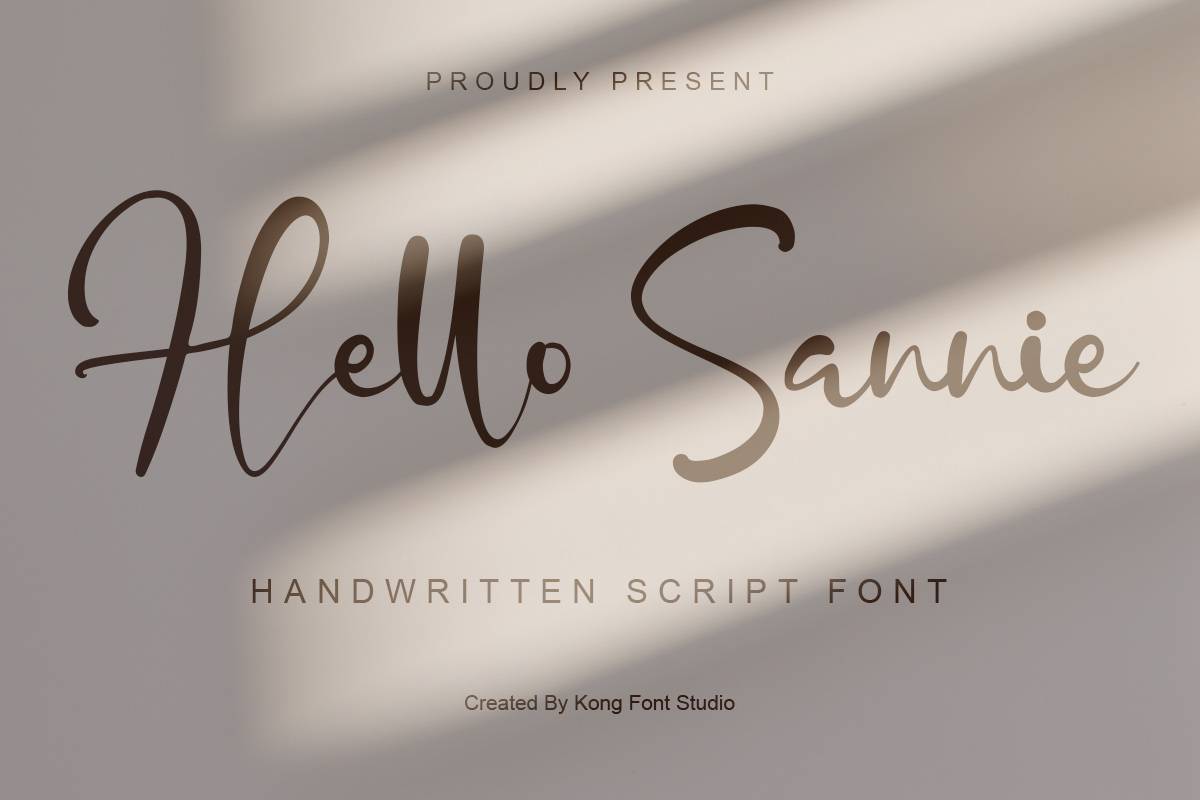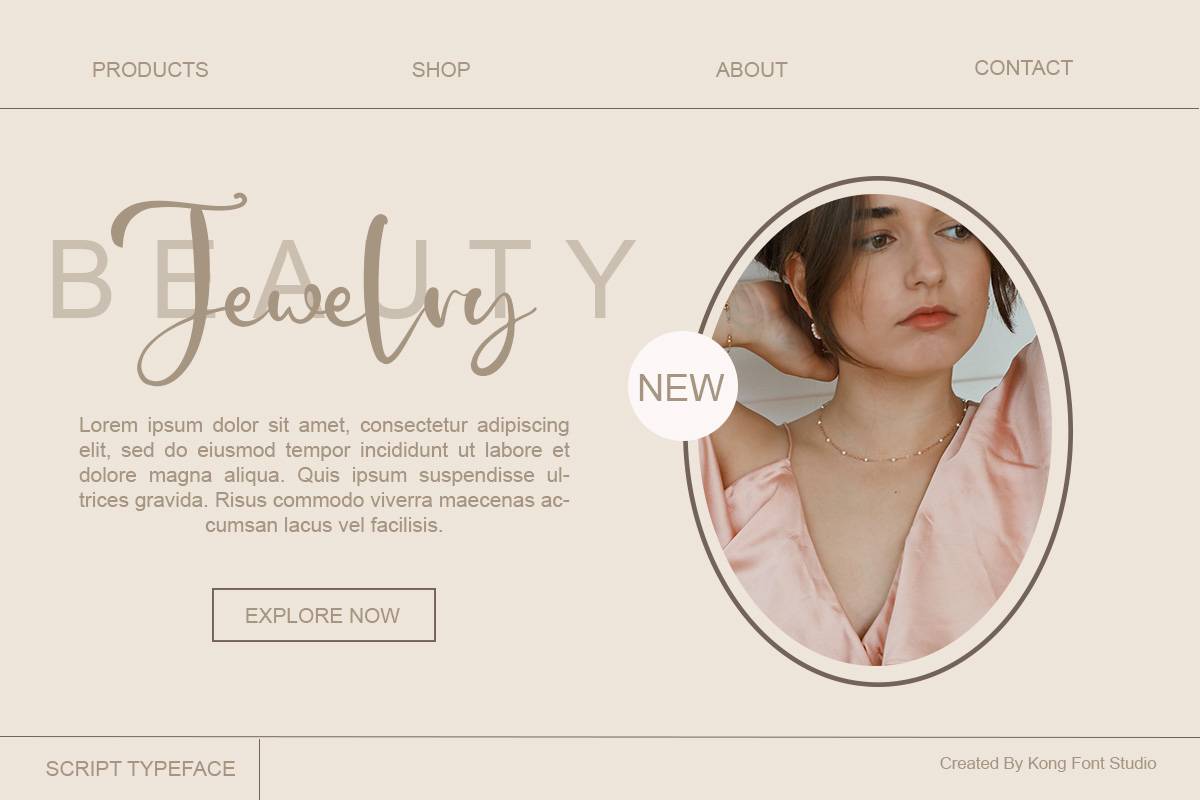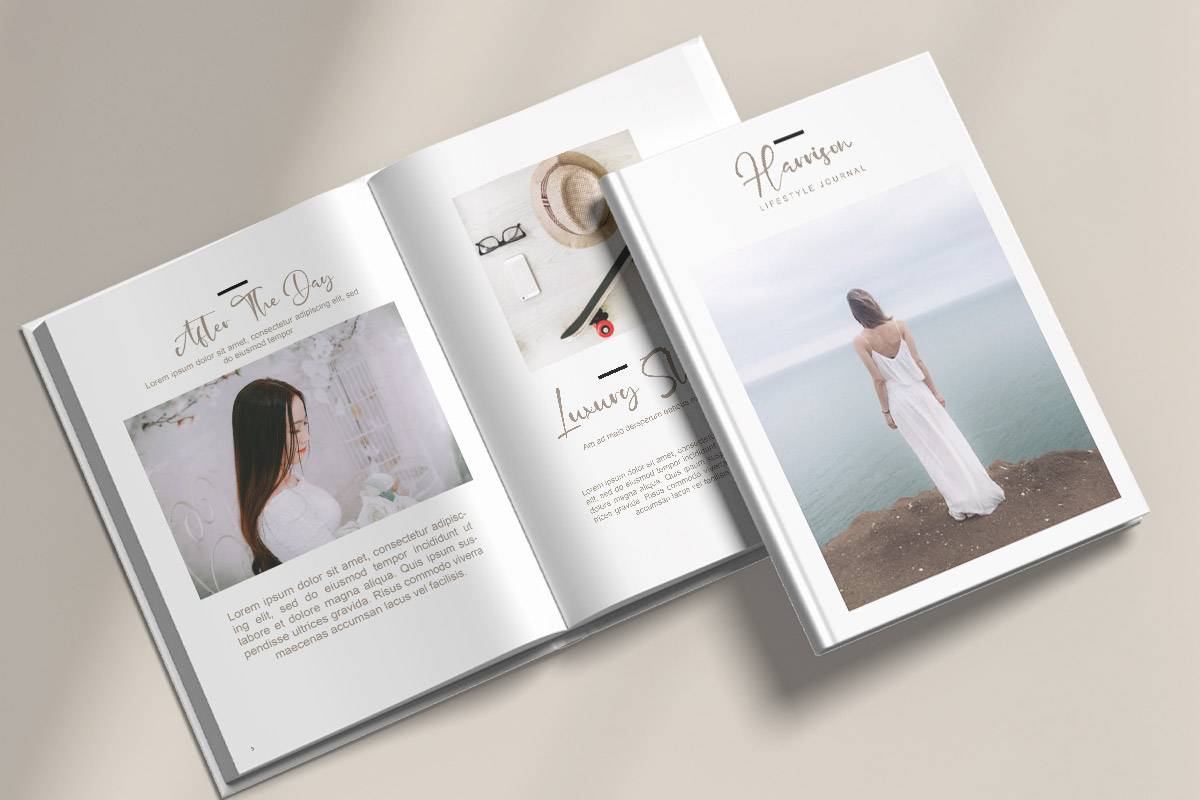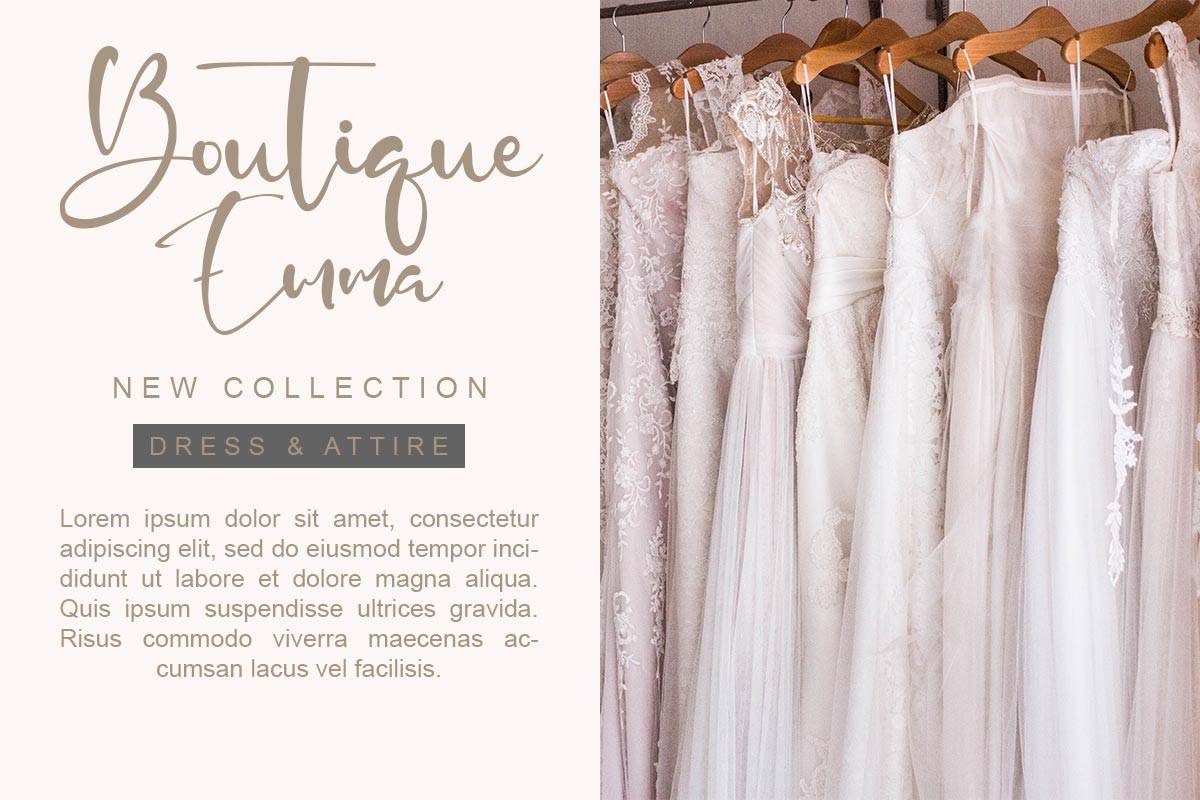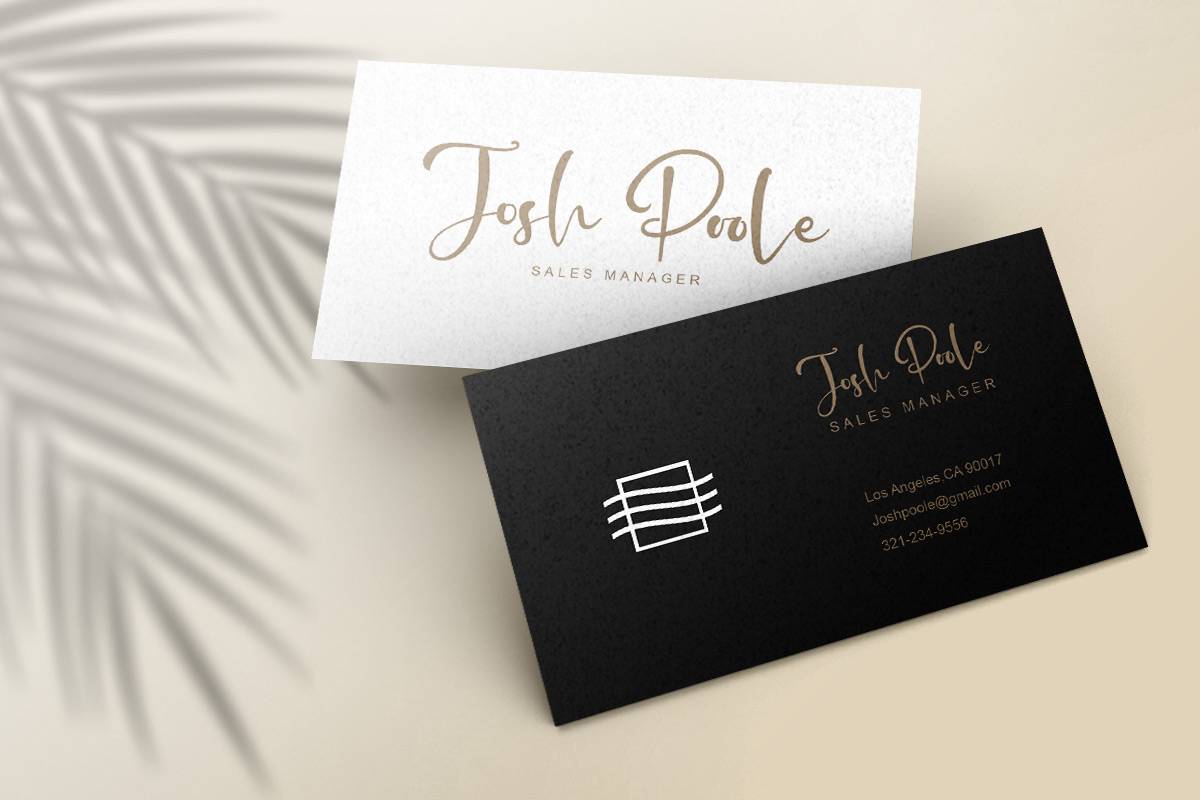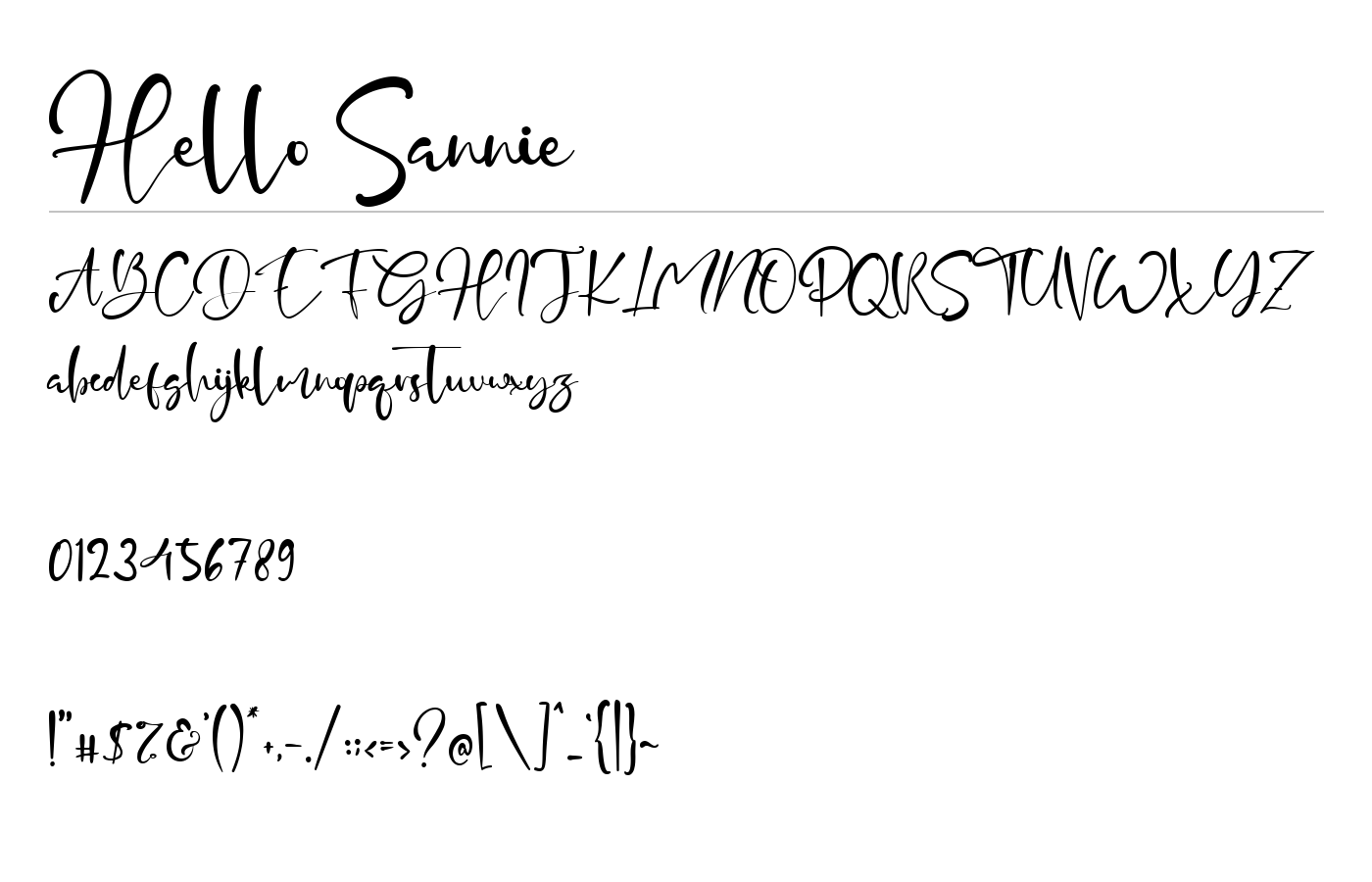
Hello Sannie is an elegant, handwritten script font with a playful and personal feel, characterized by its fluid, slightly irregular strokes and a mix of thin and medium weight lines. Its tall x-height and delicate curves make it perfect for adding a stylish yet approachable touch to branding, invitations, and editorial designs that seek warmth and charm. This font shines in creative projects where a friendly, informal, and modern script can bring character and personality.
Hello Sannie Font
About Hello Sannie Font